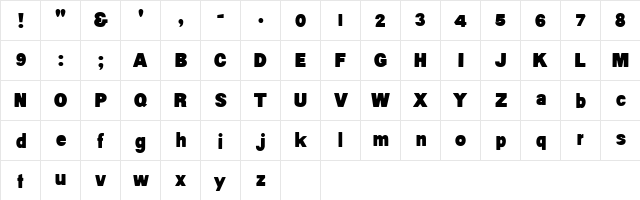
Black Gothic HPLHS
Black Gothic has the quiet confidence of well-executed sans-serif typography: versatile, unobtrusive, and dependable at any size.
Font Pairing: Works well alongside a characterful serif or display font that can carry the expressive load while Black Gothic handles the functional copy.
Pro Tip: Use Black Gothic for UI labels, navigation, and short-form body copy where clean legibility is the priority.